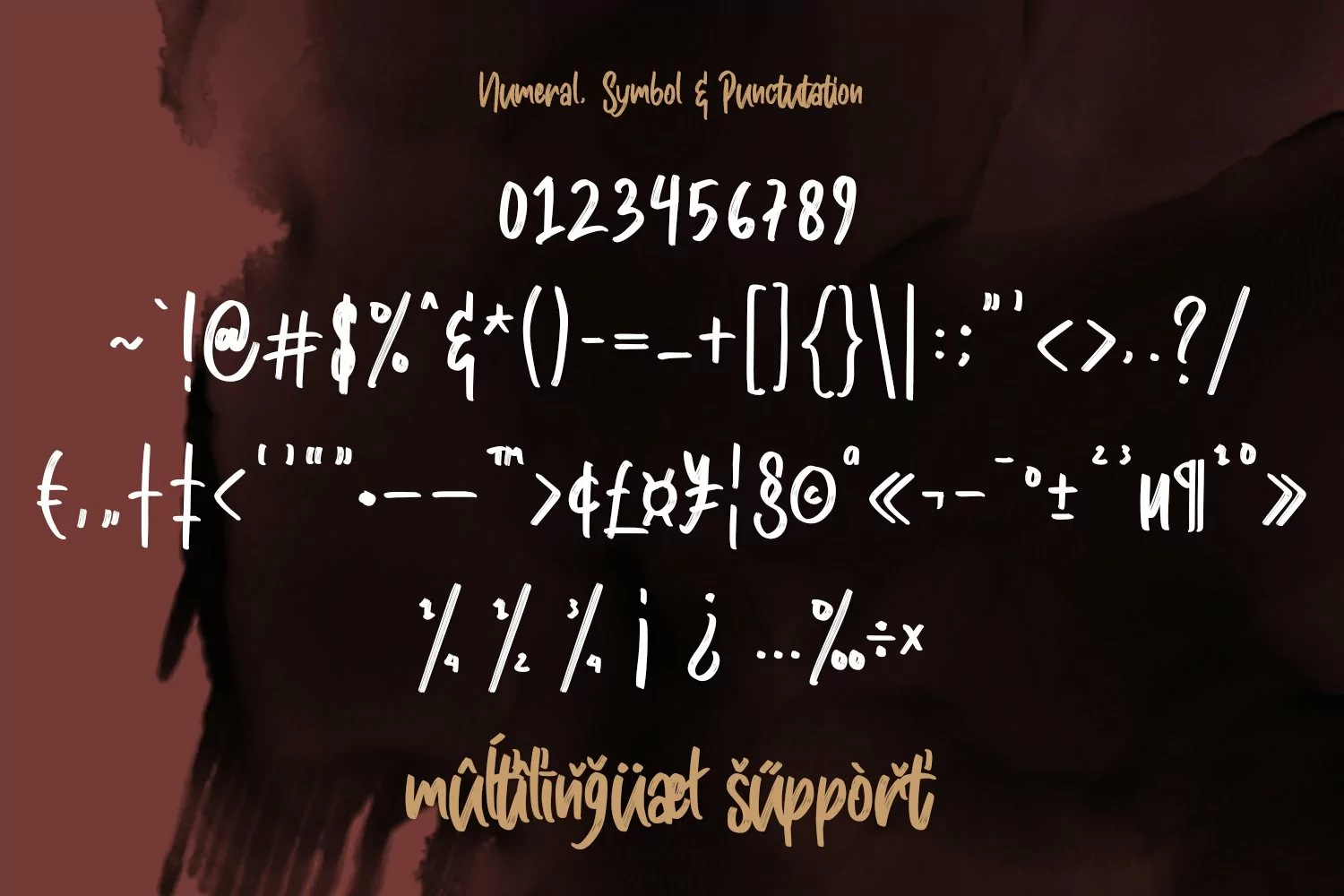
Give your designs an authentic handcrafted feel. “ Masticated” is perfectly suited to signature, stationery, logo, typography quotes, magazine or book cover, website header, clothing, branding, packaging design and more.